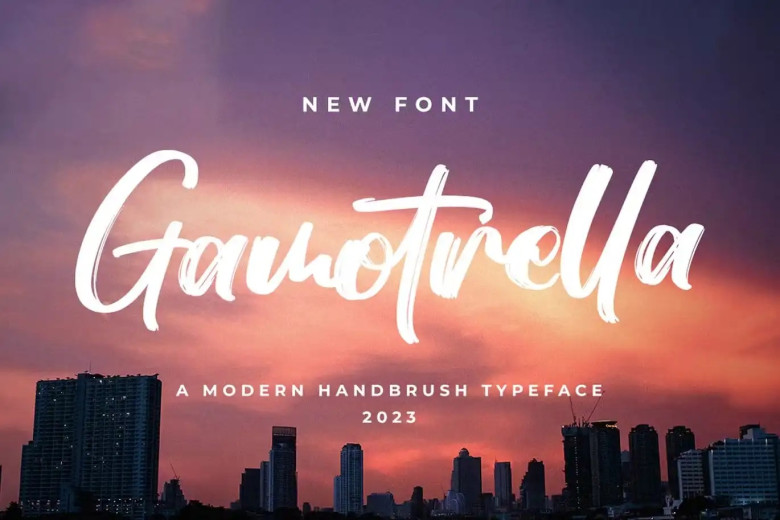
Gamotrella can be described as an authentic handwritten brush font. Perfect for branding and decorating wedding invitations, book covers marketing material, marketing campaigns and more! What you get is Gamotrella OTF TTF WOFF PUA encoded font that works well with Adobe Illustrator, Photoshop InDesign even Microsoft Word, fully accessible without additional design software needed! PUA encoded characters allow access without the need to purchase additional design software.
Gamotrella Brush Font